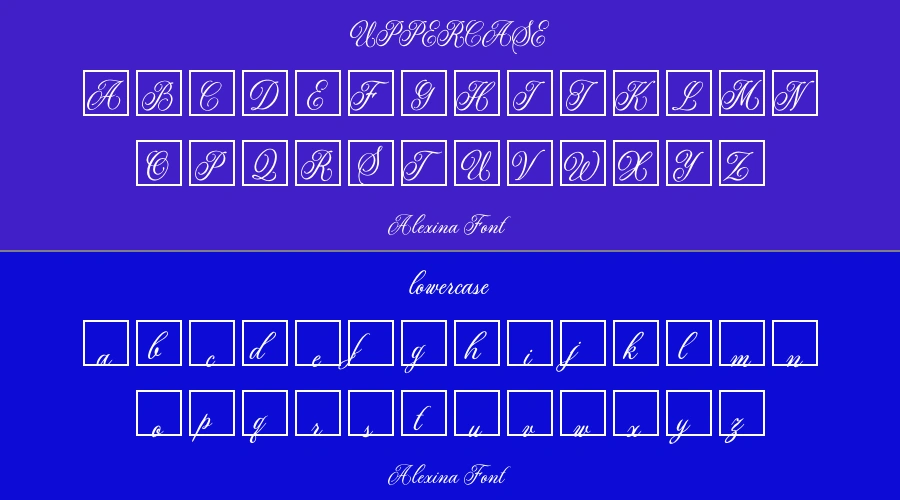
About Alexina Font
Alexina Font embodies typographic excellence through its masterful combination of balanced tension and versatility. Created for technical manuals, this typeface delivers exceptional reliability and artistic value across all applications. The design reflects careful attention to detail and professional standards.
Advanced capabilities include distinctive teardrop terminals and versatile terminal forms, giving designers creative control. When used in brand statements, Alexina Font exhibits remarkable cross-platform compatibility. The harmonious balance between descender depth and engineering heritage sets this typeface apart.